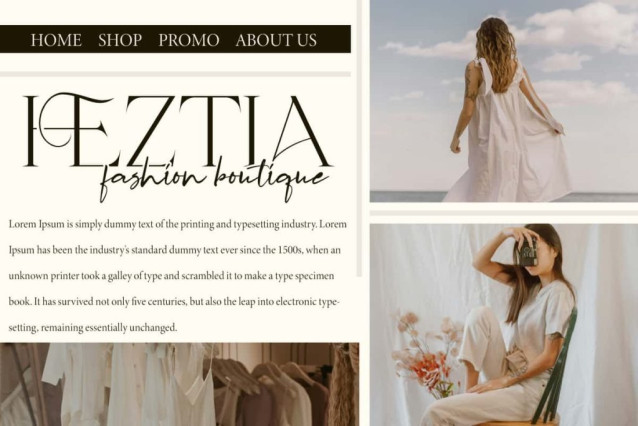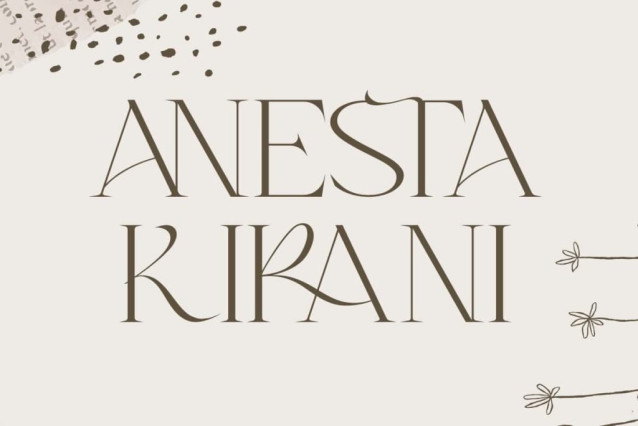
Anesta Kirani Font
Anesta Kirani Font is a luxurious serif display font with a trendy modern style. Not only that, this font also features beautiful ligature letters to add a unique style to your projects. It would be very suitable to be used in blogs, brand logo, embossed design, flyer, headers, headline, jewelry, label, mockup, poster, product packaging, quotes, stickers, title, website, and more.
Anesta Kirani Font includes full set of Uppercase and Lowercase Basic Characters, Numbers, Punctuation, Symbols and Ligature. This font has classy characteristics so that any design looks magnificent. Your project can be made more stunning by adding this font. So, it is a great choice for advertising, beauty clinic, craft, boutique, fashion, skincare, spa salon, etc.